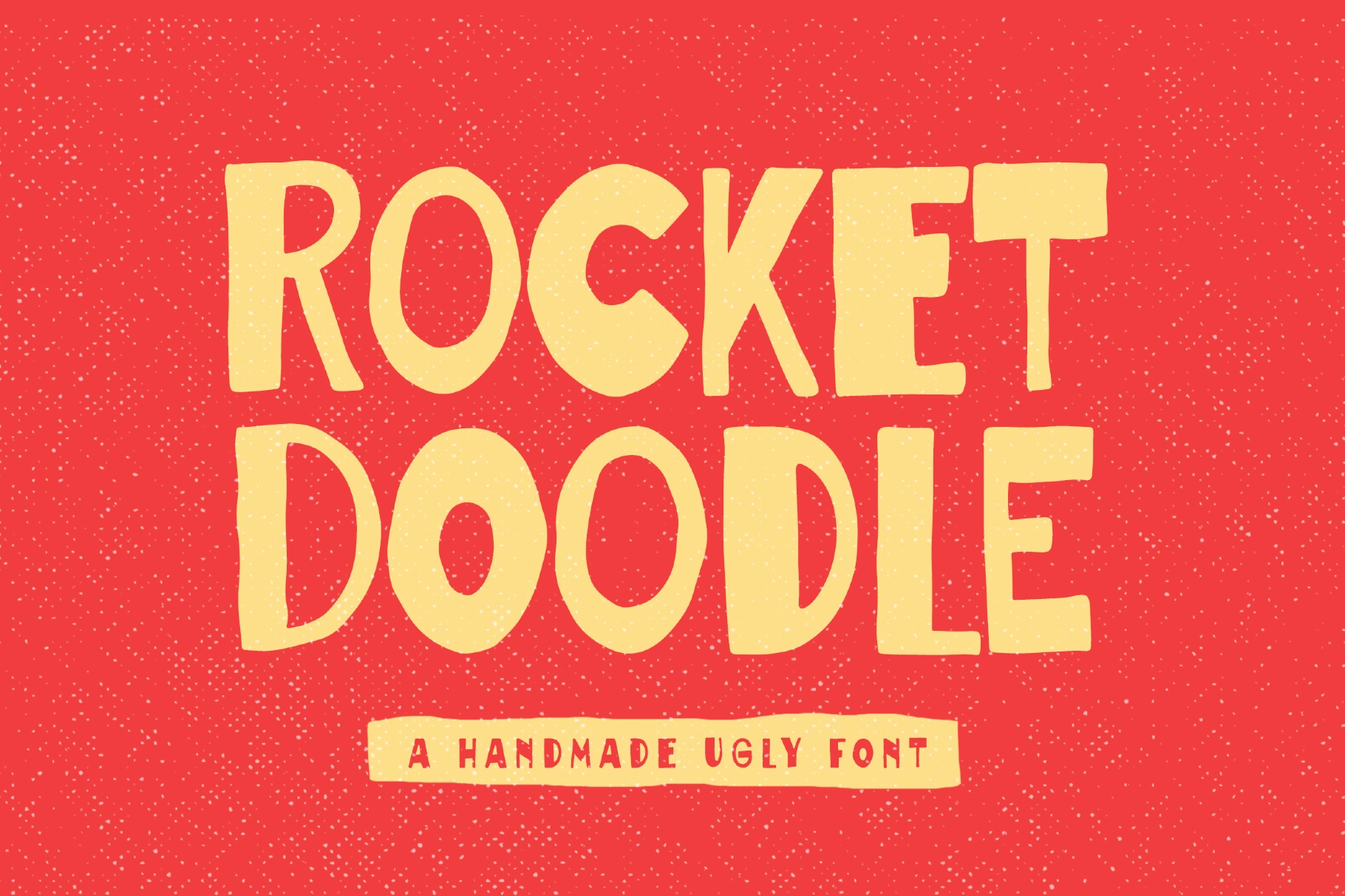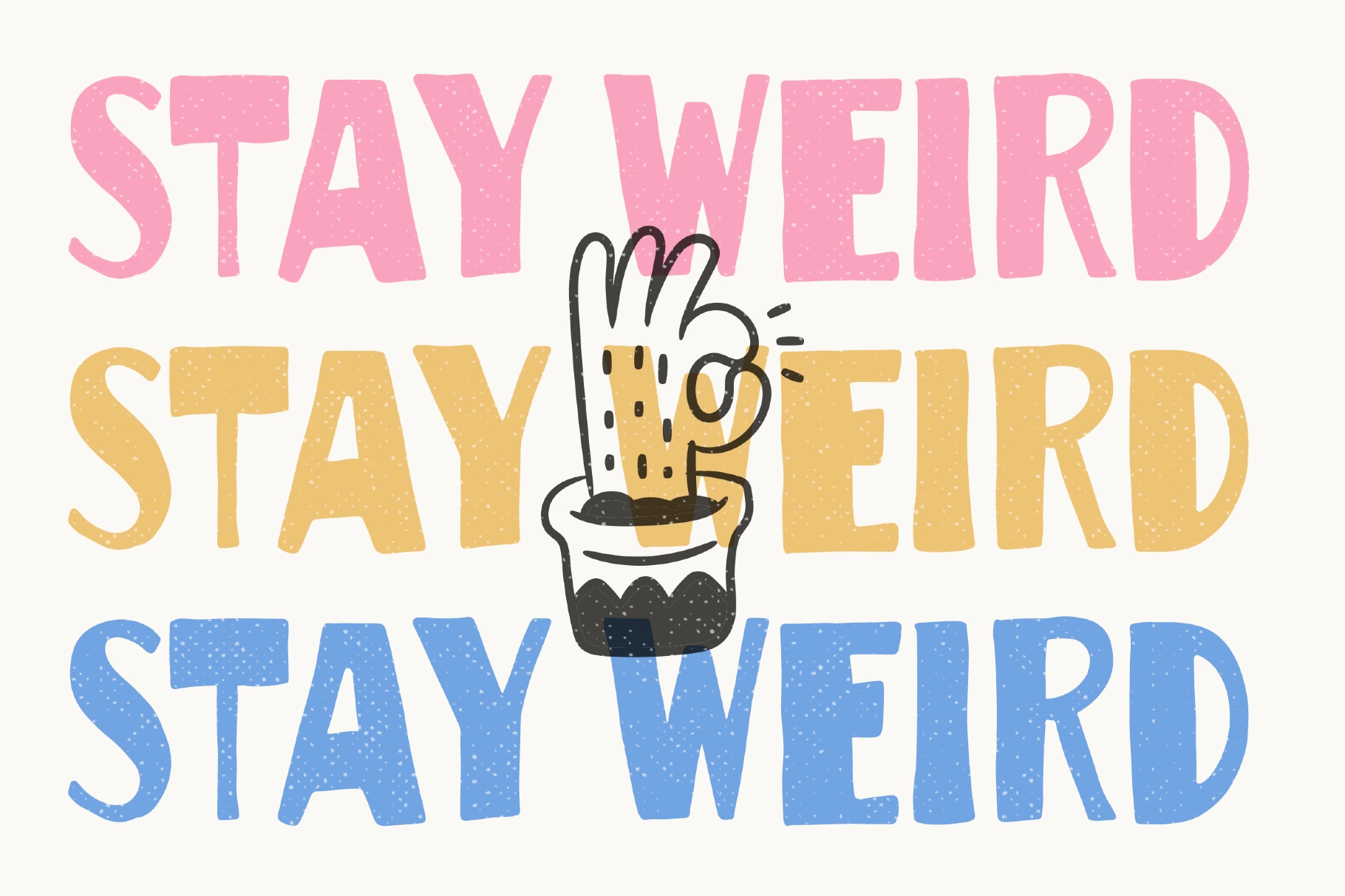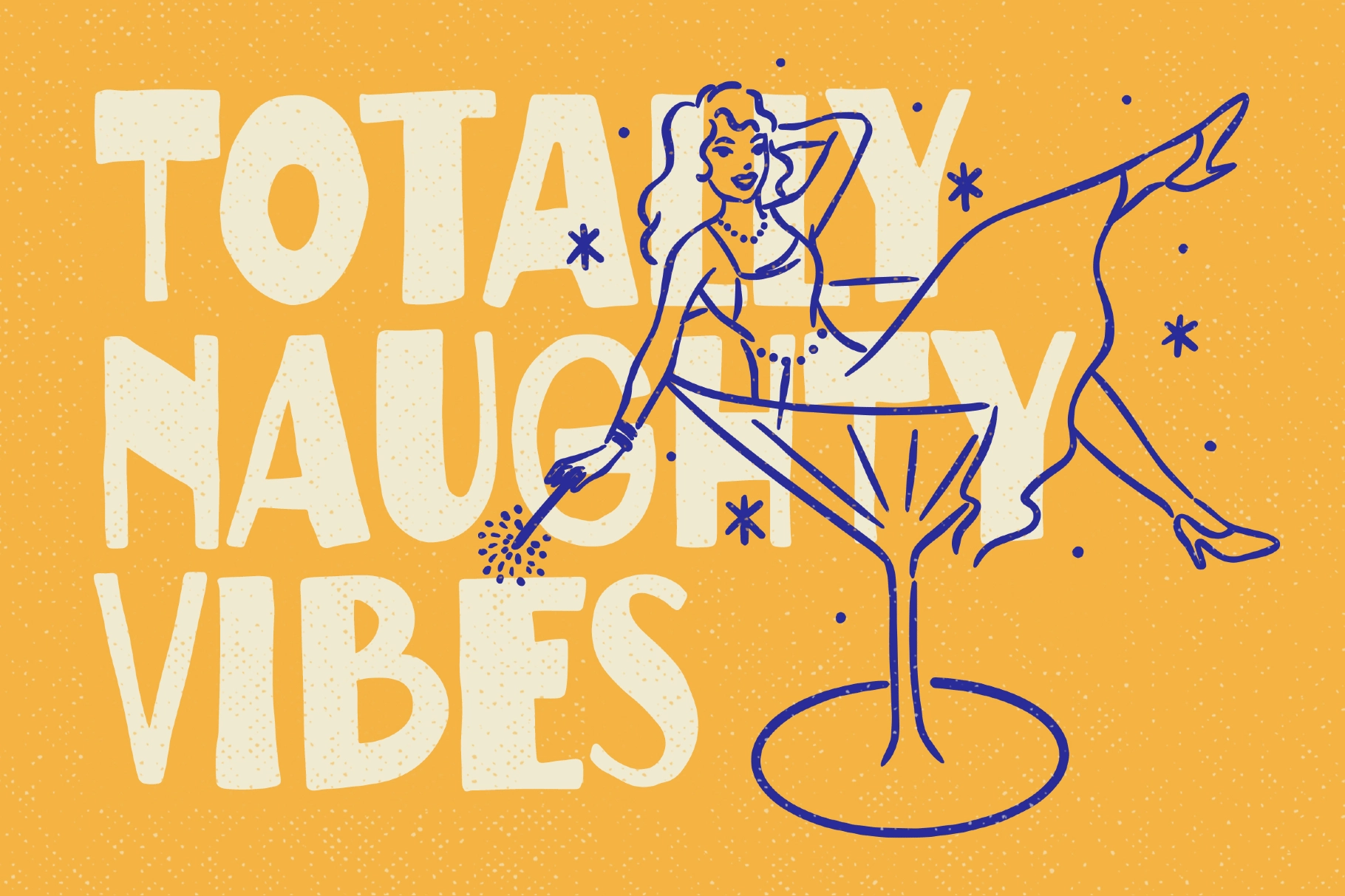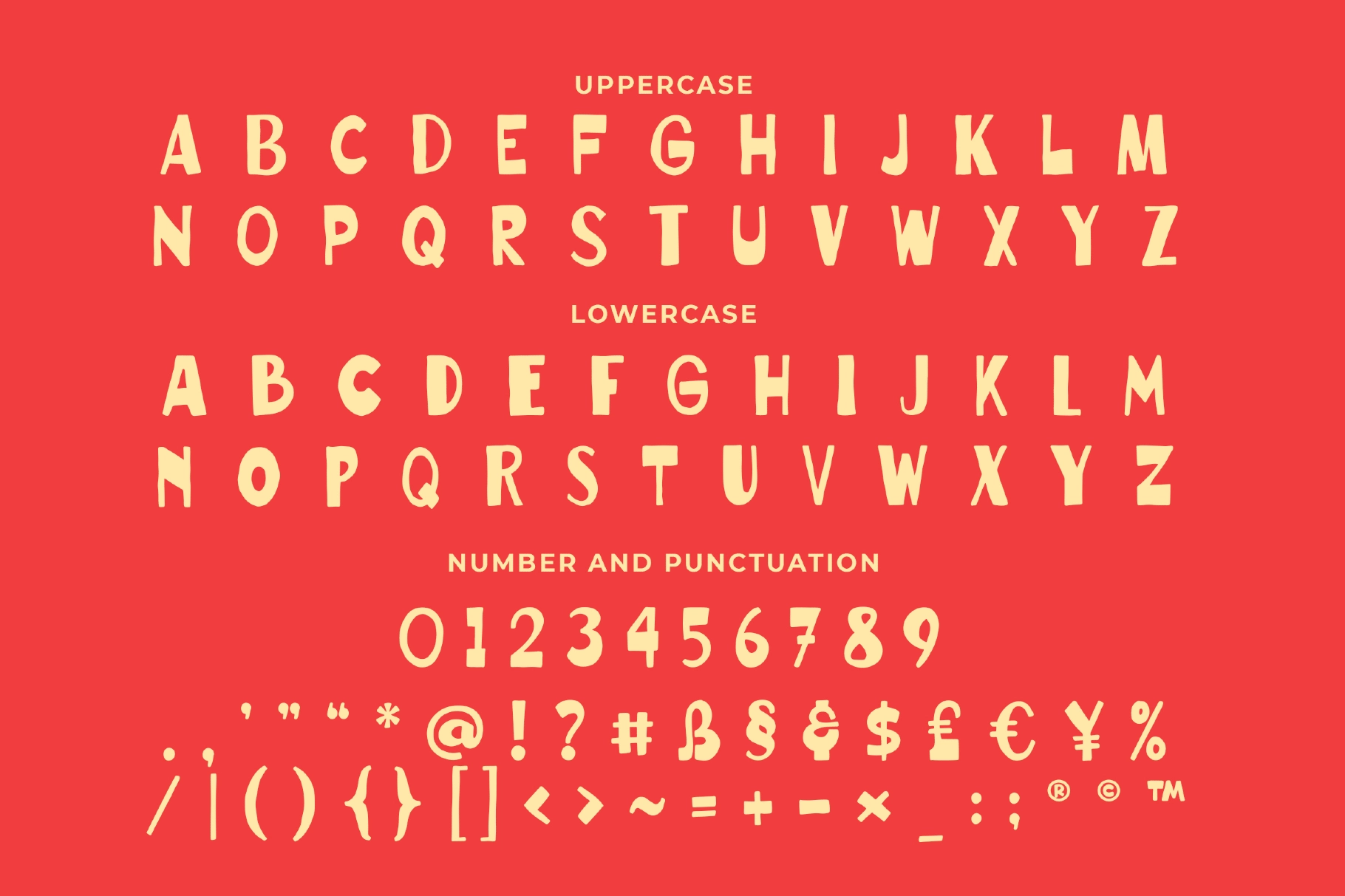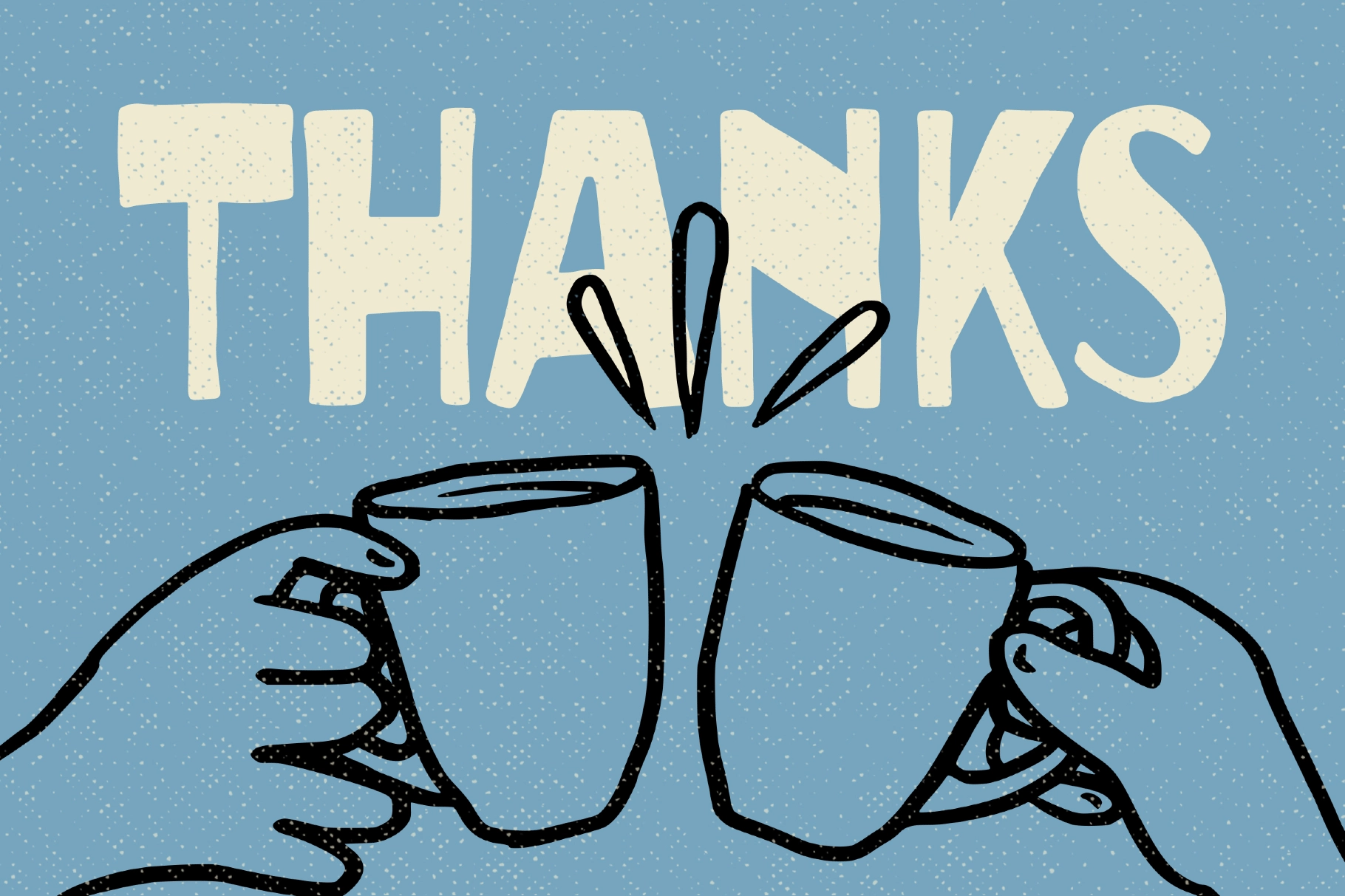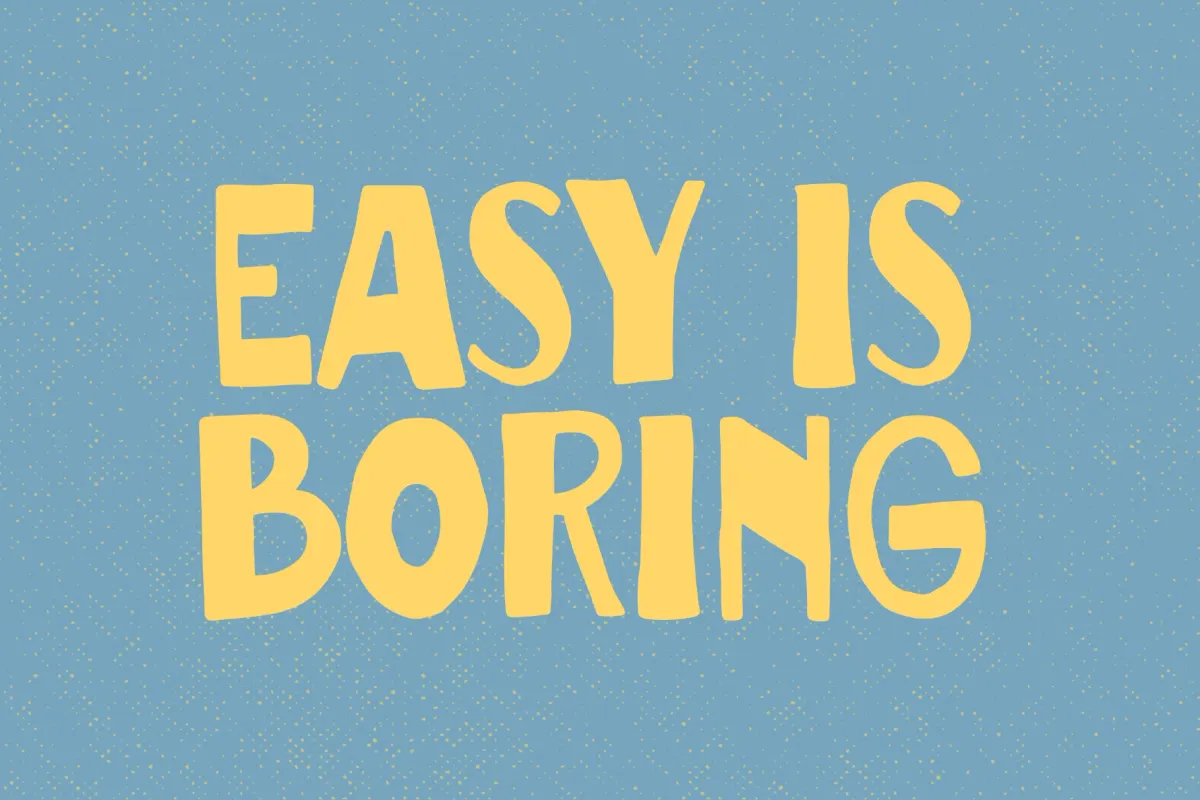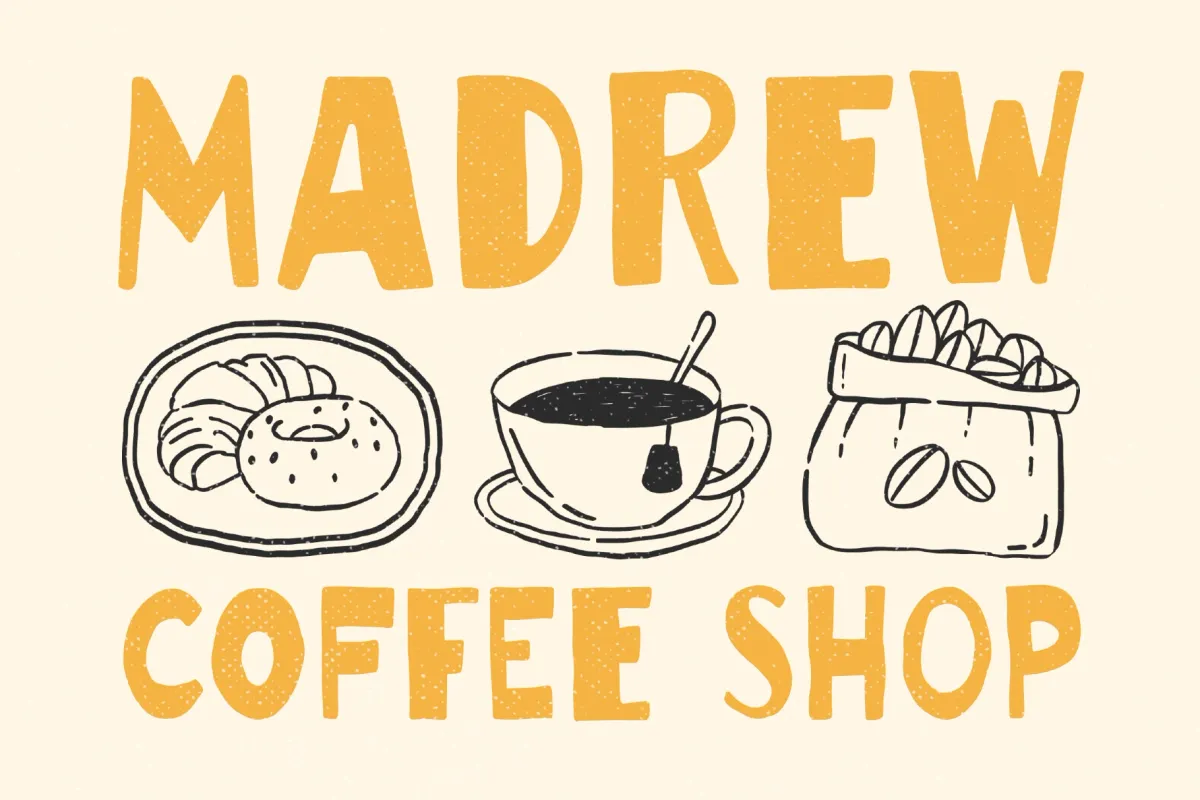
Rocket Doodle a Handwriting Ugly Font
Rocket Doodle a handwriting ugly font is made for any professional project branding, such as logotype, watermarks, poster, branding, promotions, product packaging, etc. Every letter has a ugly style design. This font comes in Otf. and Ttf. files.
Rocket Doodle font includes a full set of ugly uppercase and lowercase letters, numerals and punctuation. This font has a ugly style. See the previews above to get some inspiration on how to use them.